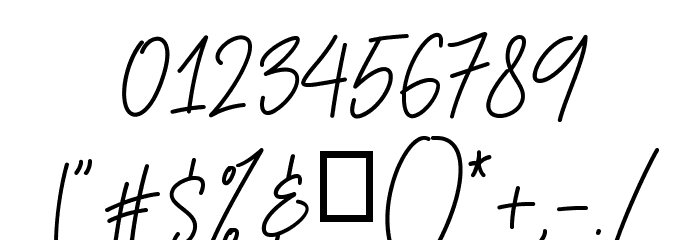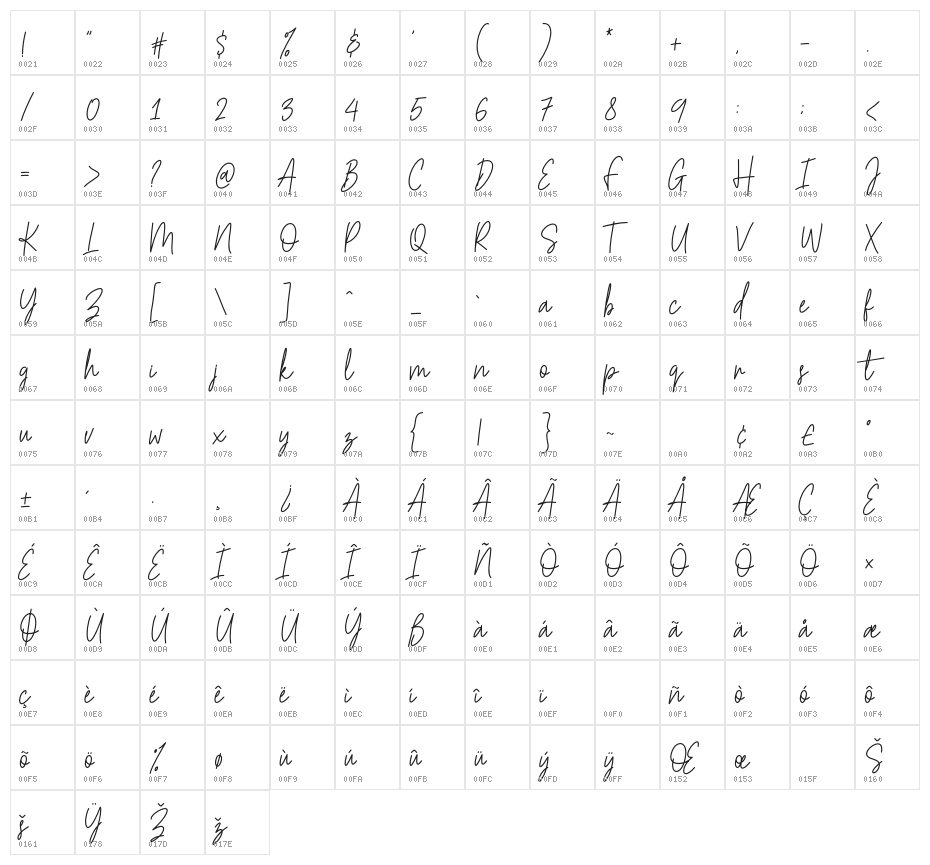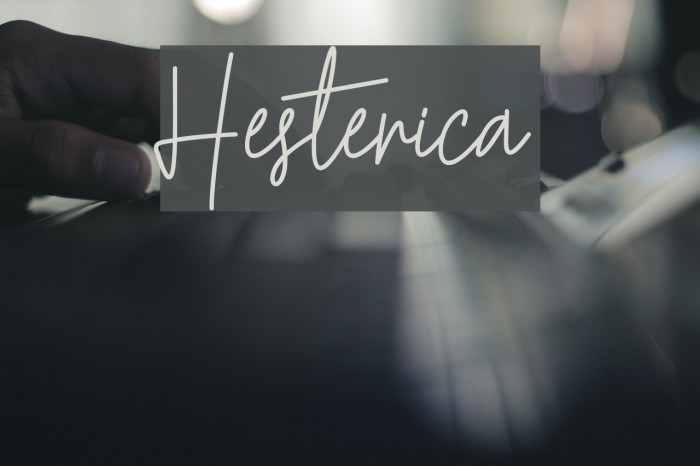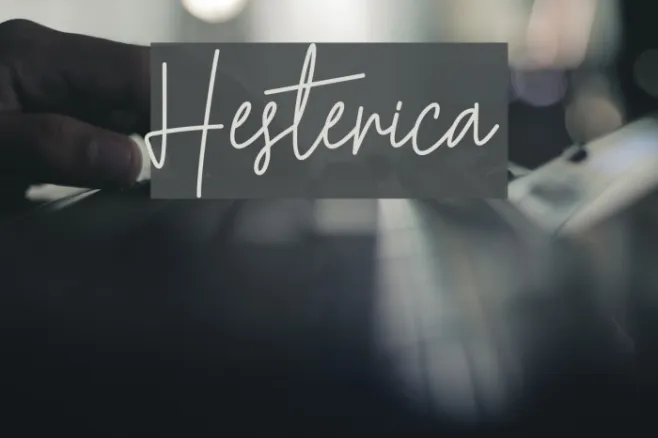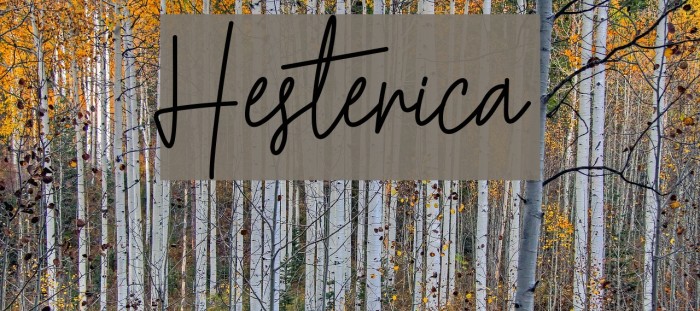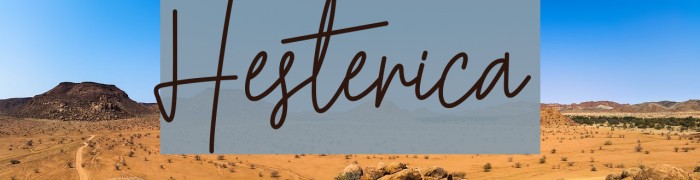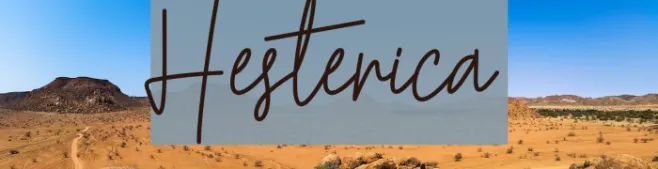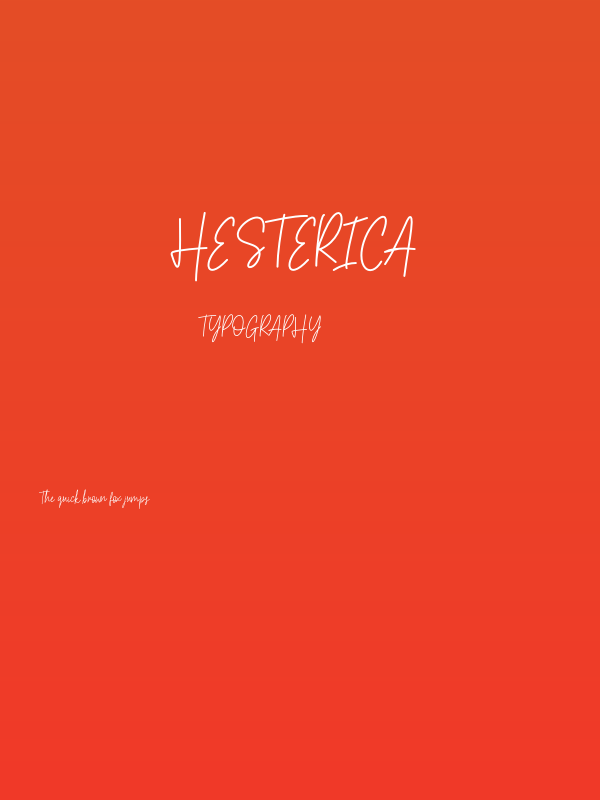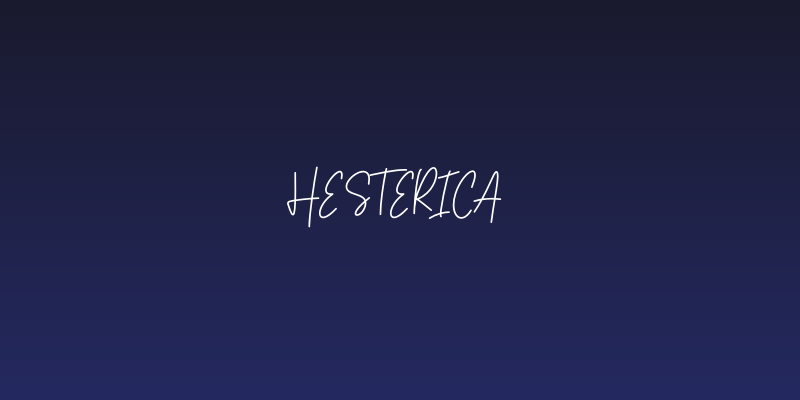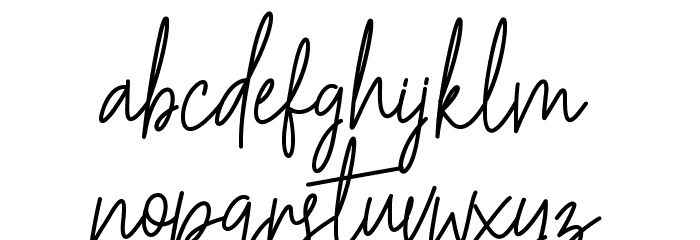
Hesterica Font
Hesterica Description
This font exudes a lively and dynamic handwritten style, characterized by its fluid and cursive letterforms. The uppercase letters are tall and slender, with a slight slant that adds a sense of motion and elegance. The lowercase letters maintain a consistent flow, with smooth connections between characters, enhancing its script-like appearance. The numerals are well-integrated, matching the overall aesthetic with their rounded and slightly elongated shapes. Special characters are thoughtfully designed, maintaining the cohesive and artistic feel of the font. This font is perfect for projects that require a personal touch, such as invitations, greeting cards, or branding materials.